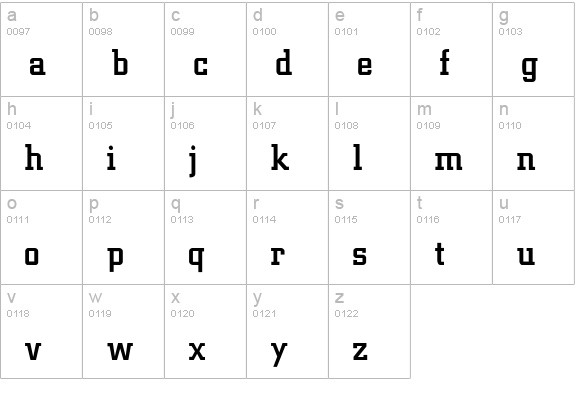
Nite-Medium-Medium is a balanced, medium-weight variant in the Nite typeface family \xE2\x80\x94 well suited to sub-headlines, navigation, and balanced editorial work.
Nite-Medium-Medium font is a versatile and modern typeface that strikes the perfect balance between elegance and readability. With its medium weight and medium width, this font is ideal for a wide range of design projects, from branding to editorial design. The clean lines and timeless appeal of Nite-Medium-Medium make it a go-to choice for designers looking to make a statement. The best part? Nite-Medium-Medium font is completely free to download at FontsMarket.com. This means you can easily incorporate this stylish font into your projects without breaking the bank. Whether you're working on a website, a brochure, or a logo, Nite-Medium-Medium font is sure to elevate your design and give it a polished finish. Download it today and see the difference it can make in your work!